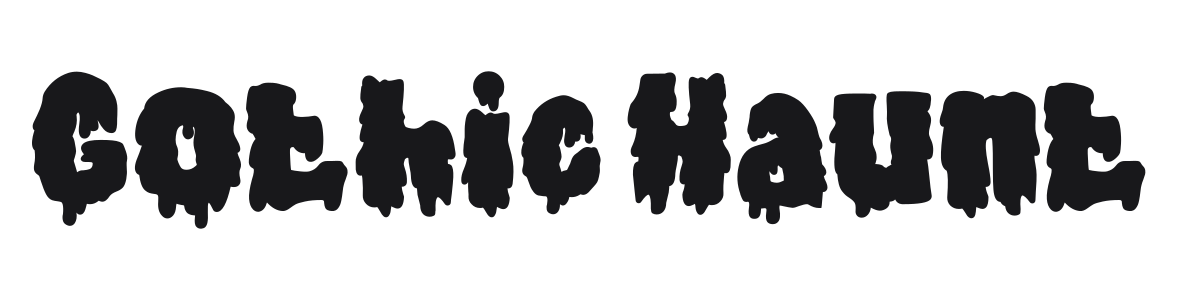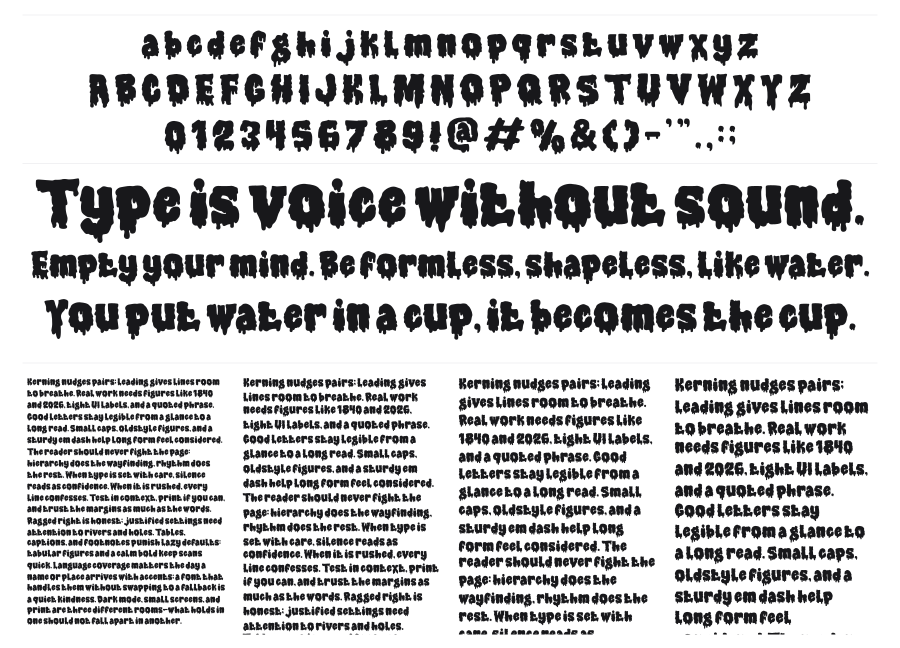
Gothic Haunt
Gothic Haunt is a bold Halloween display font built around dripping slime effects that hang from every character. The thick, chunky strokes carry a gothic blackletter DNA, but the oozing drips push it firmly into horror novelty territory. Great for seasonal posters, event flyers, and any project that needs an unapologetically spooky personality.